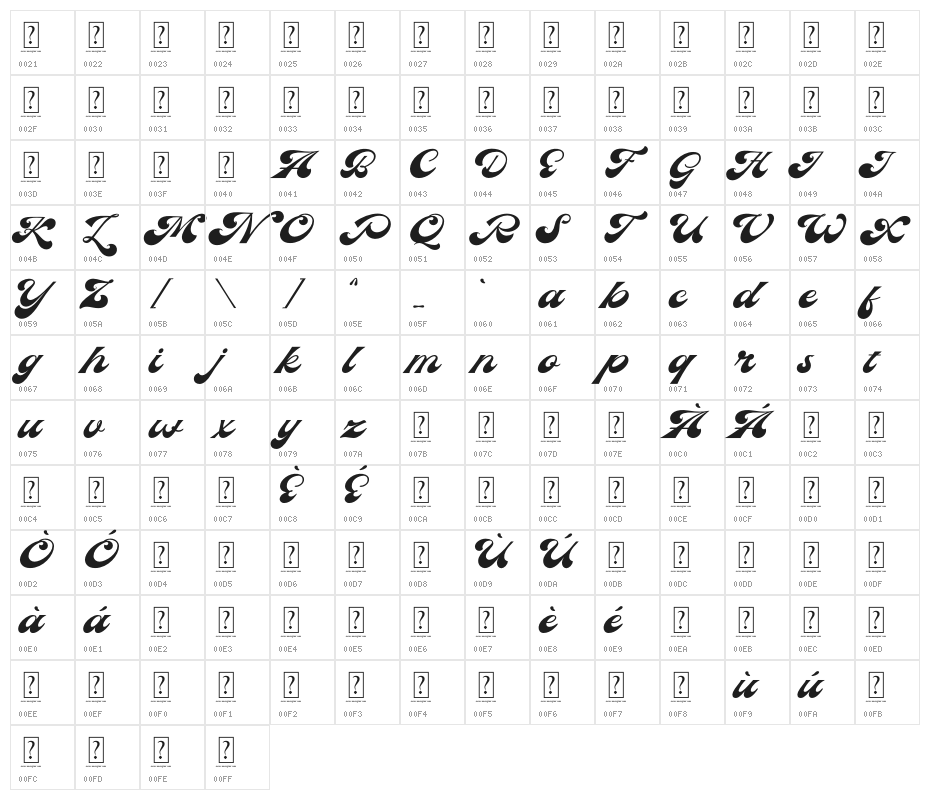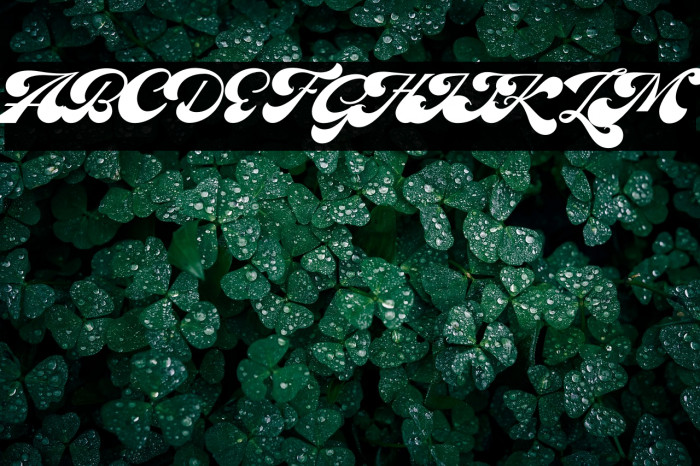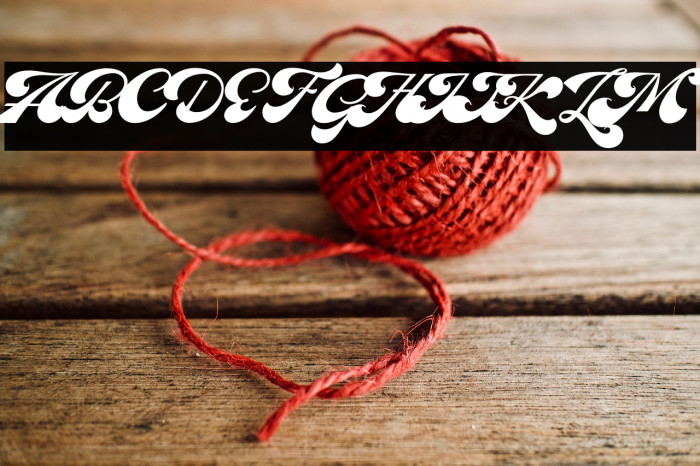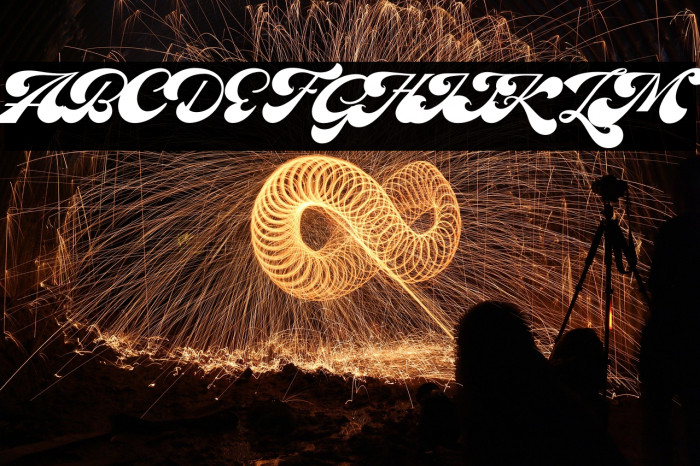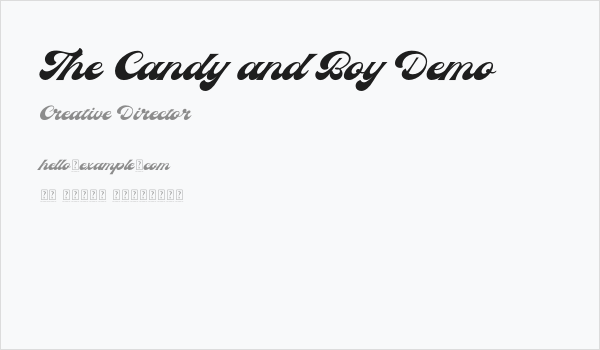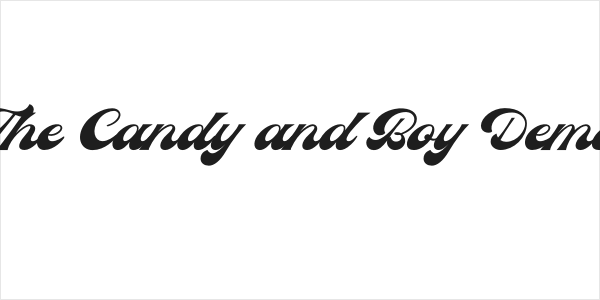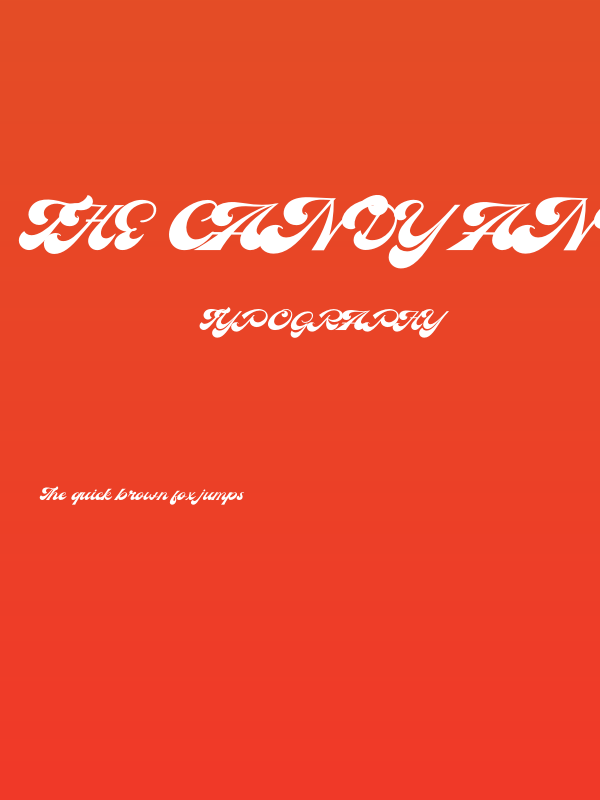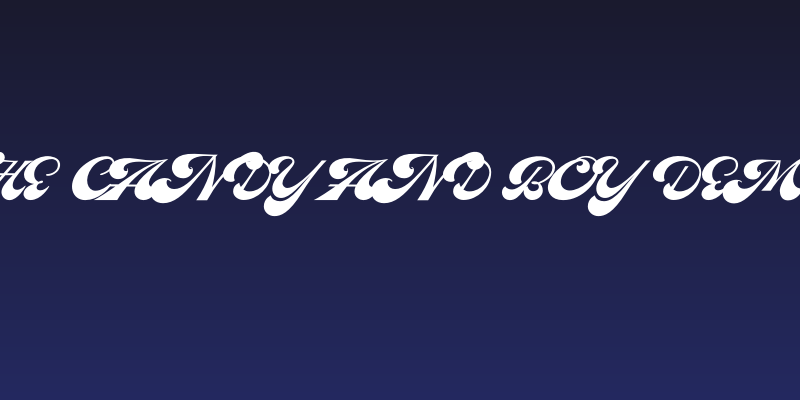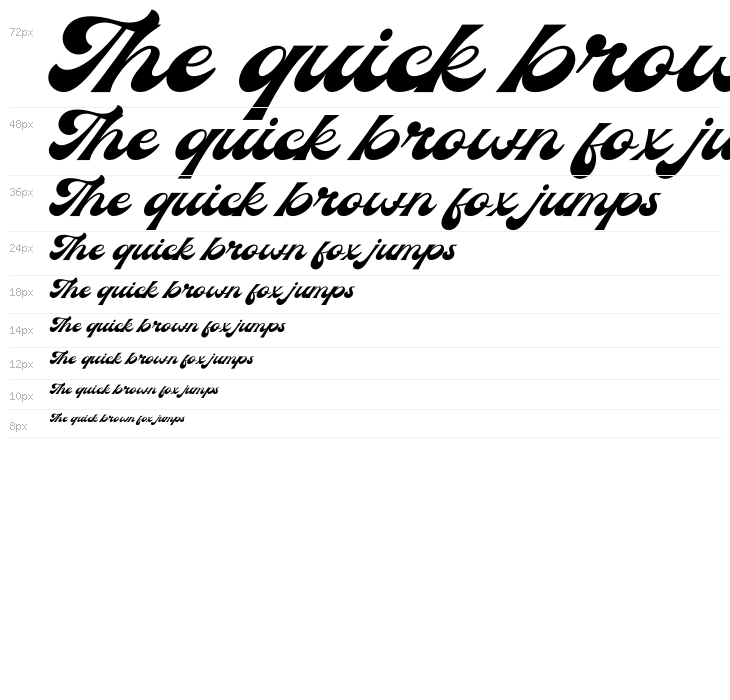
The Candy and Boy Demo Font
The Candy and Boy Demo Description
This font features a bold and expressive script style with a playful and dynamic flow. The letters are connected, creating a sense of movement and continuity. The uppercase letters have a strong presence with exaggerated curves and flourishes, while the lowercase letters maintain a consistent rhythm. The overall design is both elegant and whimsical, making it suitable for creative and artistic projects. The font's thick strokes and high contrast between thick and thin lines add to its dramatic appearance.
| Proposed Projects | Ideal for branding, invitations, greeting cards, and artistic posters. |